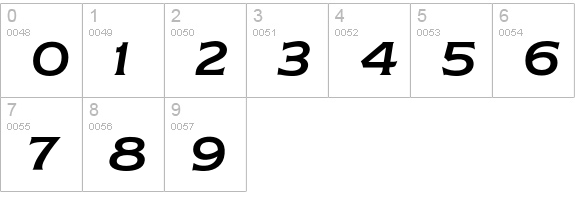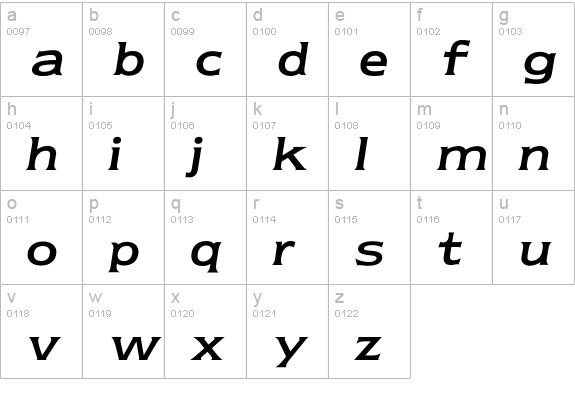
NewtextRegularItalic Font Details
Introducing NewtextRegularItalic, a stylish and versatile italic font that brings a touch of elegance to any design project. With its slanted angles and sleek curves, this font exudes sophistication and class. Whether you're working on a website, logo, poster, or any other creative endeavor, NewtextRegularItalic is sure to make a statement. And the best part? This font is completely free to download at FontsMarket.com! Don't miss out on the opportunity to add this beautiful typeface to your collection without spending a dime. Perfect for adding a touch of flair to your text, NewtextRegularItalic is a must-have for designers looking to elevate their work to the next level. Download it today and start creating stunning designs with ease.